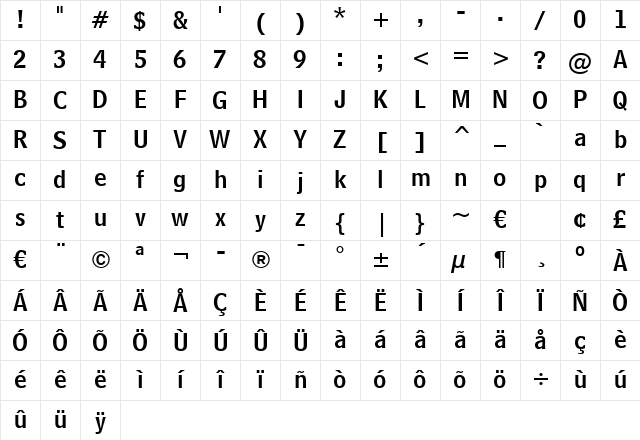
BellCent NamNum BT Name and Number
Style: Name and Number
Design Context for BellCent NamNum BT
BellCent NamNum BT is a composed and adaptable typeface that performs quietly and consistently across a wide range of design contexts.